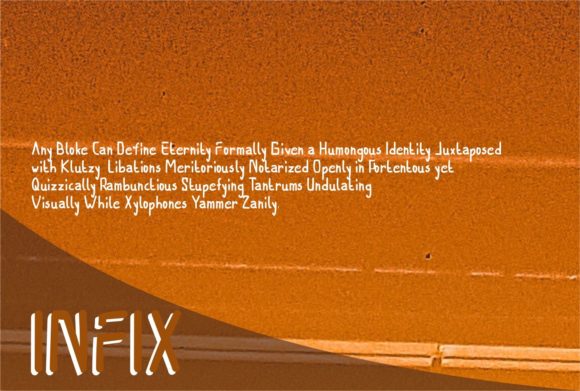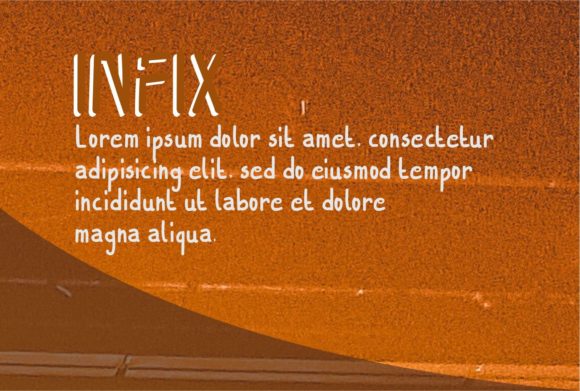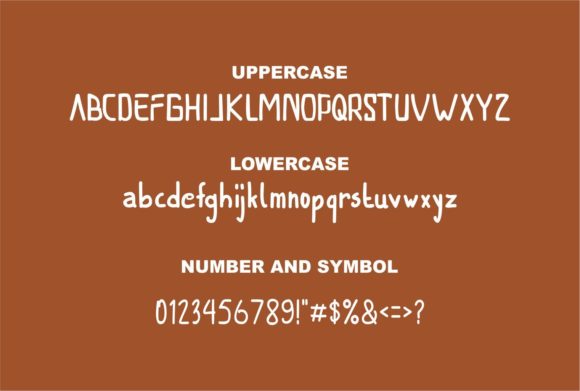
Introduction to Infix Font
Have you ever been working on a design project, pouring your heart and soul into every detail, only to realize that the perfect font is just out of reach? That’s exactly what happened to us when we stumbled upon the Infix Font – a clean and adaptable display font that’s a game-changer for any creative project. Its stunning design and versatility make it a valuable addition to any designer’s toolkit.
With the Infix Font, you’ll have endless possibilities to create high-quality designs that pop. Whether you’re working on a poster, flyer, or print project, this font is sure to deliver. Plus, with its transparent background, you can easily incorporate it into your designs without worrying about distractions. And the best part? You can download it for free, making it an invaluable resource for any designer.
- Perfect for use in logos, typography, and other design elements where a high-quality font is essential.
Honest Review: Infix Font
I recently stumbled upon the Infix Font and I must say, it’s been a game-changer for my design projects. The free download was a huge plus, and I was impressed by the high quality of the font.
Here are some things that work well: ✨ The font has a transparent background, making it easy to integrate with any design. ✨ It’s highly customizable, allowing me to tweak the design to fit my creative project’s needs. ✨ The font is compatible with a variety of design software, including Adobe Creative Cloud.
However, I did encounter some limitations: ⚠️ The font library is relatively small, which may limit its use for more complex designs. ⚠️ Some users may find the font’s design to be too minimalist, which may not be suitable for all design projects.
Overall, I’m quite impressed with the Infix Font. It’s a great design resource that’s perfect for smaller creative projects. While it may not be suitable for more complex designs, it’s definitely worth checking out for any designer looking for a high-quality, free font.
Infix Font is a versatile and high-quality design resource suitable for a wide range of creative projects. This free download offers a unique and stylish aesthetic, perfect for adding a touch of sophistication to your designs.
Tips for Getting the Most Out of Infix Font
To get the most out of Infix Font, try using it in combination with a transparent background to create a clean and modern look. You can also experiment with different font sizes and colors to achieve a unique and eye-catching design.
Infix Font is commonly used in a variety of design projects, including business cards, brochures, and website headers. Its high-quality design and stylish aesthetic make it a great choice for any creative project.
Whether you’re a seasoned professional or just starting out, Infix Font offers a wealth of benefits that can take your designs to the next level. From its sleek and modern aesthetic to its versatility and ease of use, this font is sure to become a trusted companion for any creative project. So why wait? Download Infix Font today and discover a world of design possibilities. With its high-quality design and free download, you have nothing to lose and everything to gain. Get creative and unleash your full potential with Infix Font!